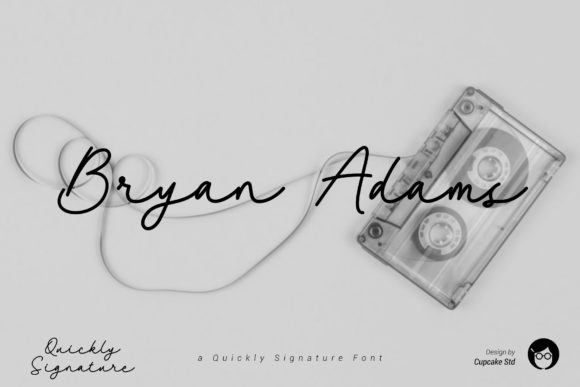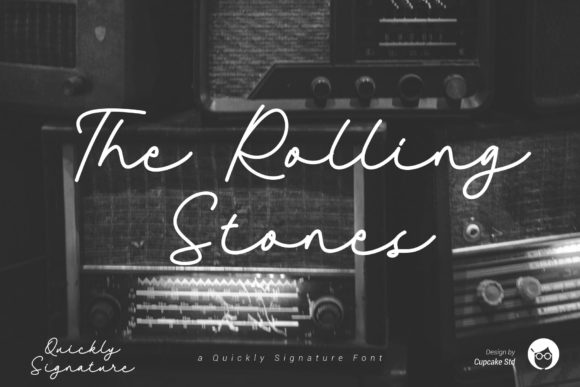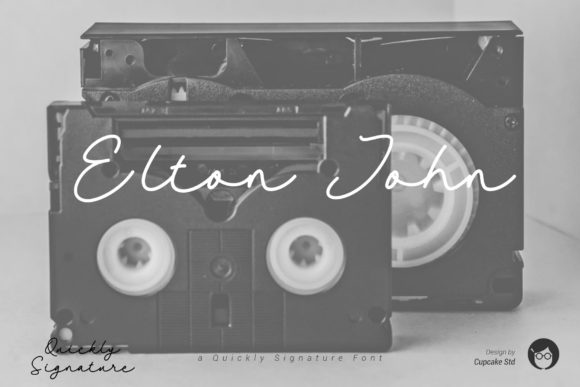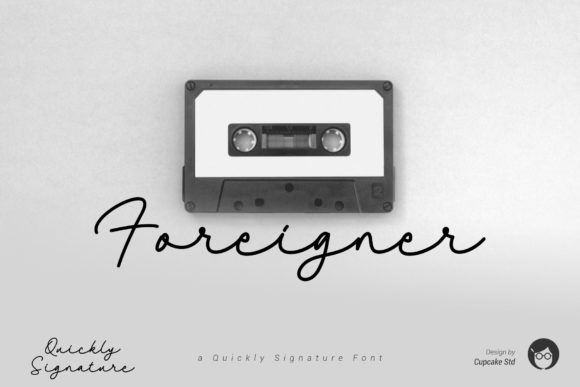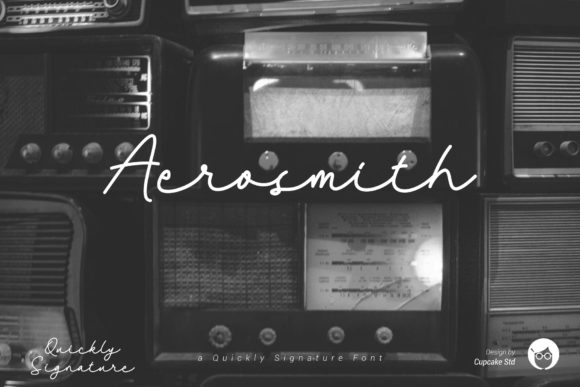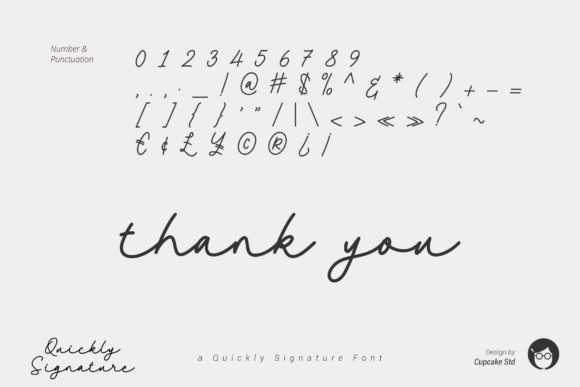
Introducing AL Quickly Signature Font: Elevate Your Designs with Elegance and Authenticity
In the world of design, the right font can make all the difference. It’s not just about conveying a message; it’s about evoking emotions and creating a lasting impression. For designers and crafters seeking a font that embodies timeless elegance and authentic calligraphy, look no further than AL Quickly Signature Font. This magical handwritten font is carefully crafted with a touch of sophistication, making it the perfect addition to your design arsenal.
The Perfect Blend of Elegance and Friendliness
Quickly Signature Font strikes a beautiful balance between classic style and friendly feel. Its incredibly classic design ensures that your creations exude a sense of luxury and refinement, while its friendly undertones keep your designs approachable and relatable. Whether you’re working on a branding project, crafting invitations, or designing social media graphics, Quickly Signature Font is the ideal choice for making original and outstanding designs.
What Makes Quickly Signature Font Stand Out?
- Timeless Elegance: Quickly Signature Font boasts a classic style that never goes out of fashion. Its elegant lines and curves add a touch of sophistication to any design.
- Authentic Calligraphy: With its roots in traditional calligraphy, Quickly Signature Font brings an air of authenticity to your designs. Each letter is carefully crafted to mimic the fluidity and expressiveness of handwritten calligraphy.
- Friendliness: Unlike some elegant fonts that can come across as formal or distant, Quickly Signature Font maintains a friendly feel. This makes it perfect for designs where you want to connect with your audience on a personal level.
- Versatility: Quickly Signature Font is incredibly versatile. It can be used for a wide range of design projects, from wedding invitations and event branding to social media graphics and product packaging.
How to Use Quickly Signature Font in Your Designs
Integrating Quickly Signature Font into your design workflow is straightforward. Here are a few tips to get you started:
- Pair it with Contrasting Fonts: For maximum impact, pair Quickly Signature Font with a contrasting font. A clean sans-serif font can provide a nice balance to the elegance of Quickly Signature.
- Experiment with Colors: Don’t be afraid to experiment with different colors. Quickly Signature Font looks stunning in metallic colors, pastels, and rich jewel tones.
- Play with Textures: Add depth to your designs by incorporating textures. A subtle texture can enhance the elegant feel of Quickly Signature Font.
Why Designers and Crafters Love Quickly Signature Font
Designers and crafters who have used Quickly Signature Font rave about its versatility and the professional touch it brings to their projects. Here are a few reasons why:
- Easy to Read: Despite its elegant design, Quickly Signature Font remains highly legible, making it perfect for body text as well as headings.
- Unique Designs: With Quickly Signature Font, you can create unique and standout designs that set you apart from the competition.
- Time-Saving: The font’s versatility and elegance mean you can achieve professional-looking results quickly, saving you time and effort.
| Font Name | AL Quickly Signature Font |
| Author | TheSundoro |
AL Quickly Signature Font is more than just a font; it’s a design tool that can elevate your creations to new heights. Its perfect blend of timeless elegance and friendly feel makes it an invaluable asset for designers and crafters. Whether you’re looking to add a touch of sophistication to your branding, create stunning invitations, or simply enhance your social media graphics, Quickly Signature Font is the perfect choice. With its versatility, elegance, and authentic calligraphy, Quickly Signature Font is sure to become a staple in your design arsenal.